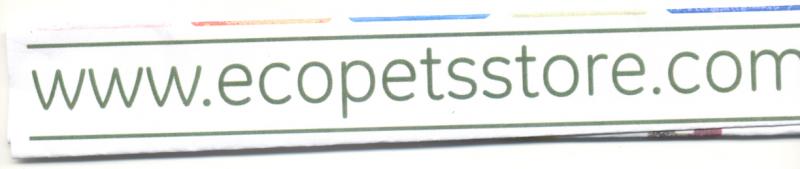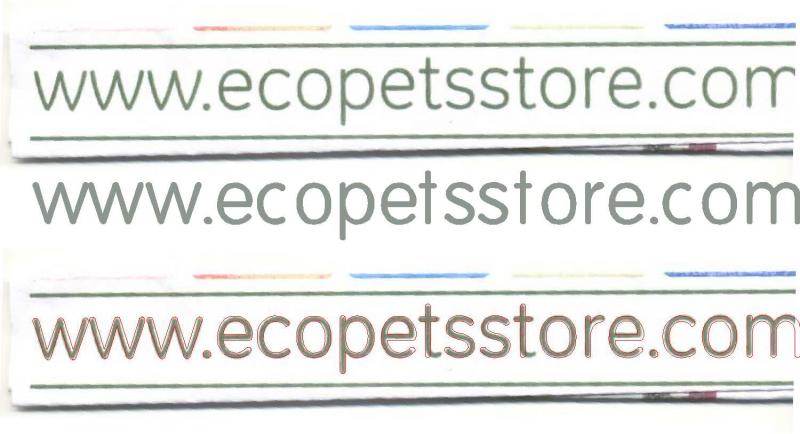
Font ID, merci beaucoup.
Actually this font is GE Inspira, a font developed for General Electric. It is not commercially available and can only be downloaded by GE employees and contractors who do design for them. Probably downloaded from a pirate site
Yeah the part that triggered my mind on this one was the name "eco". It made me think of ecomagination which is a phrased coined by GE. Thus I remembered that they use this unique font in all of their advertising/tv spots. The font sites won't ID this one because it is not able to be purchased
This is what she told me. I tried to give her Vag, Arial rounded, FF Speak...etc. and she would not accept the "w" not being "bloated". I told her that was a simple fix and she insisted I use the correct font "that her son made".